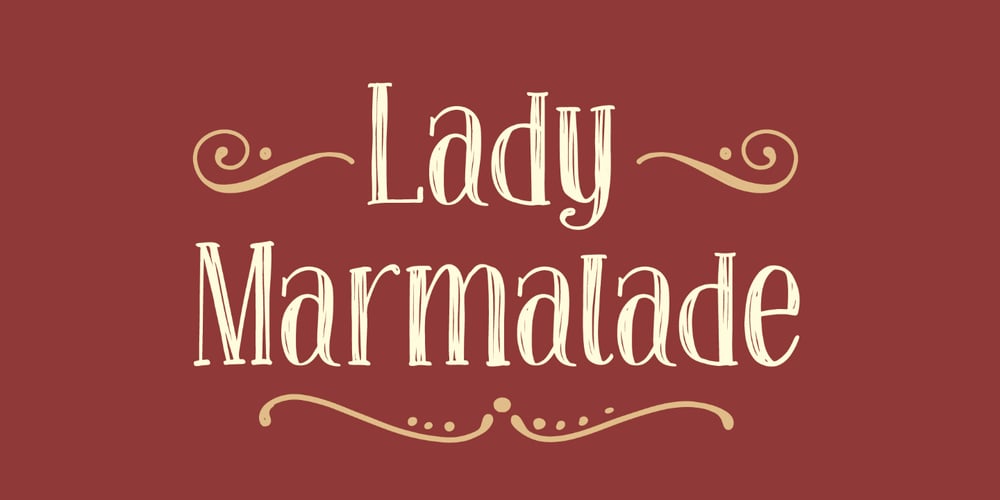
Lady Marmalade
Lady Marmalade font
Lady Marmalade Font Family was designed by Anastasia Dimitriadi and published by DimitriAna. Lady Marmalade contains 2 styles and family package options. Lady Marmalade is a hand drawn script font, with a sketchy style, that makes it perfect for lettering prints.It is combined with an Extra font that contains 62 decorative elements with ornaments, drawings, catchwords and ampersands. All you have to do is type any uppercase or lowercase letter or number, to find the element you like.The font contains standard and discretionary ligatures and supports Central, Eastern, Western European, Baltic, Turkish and Greek languages.